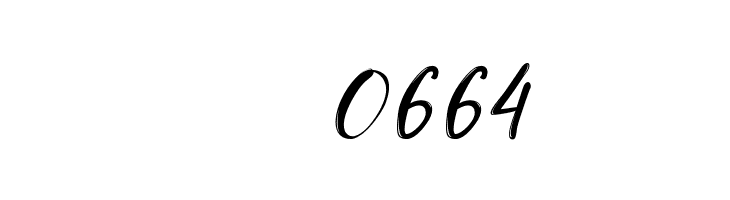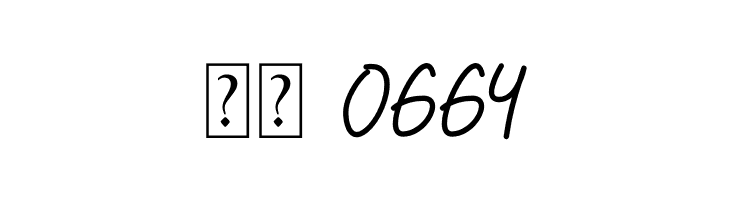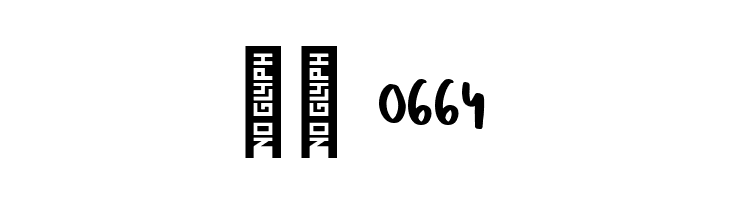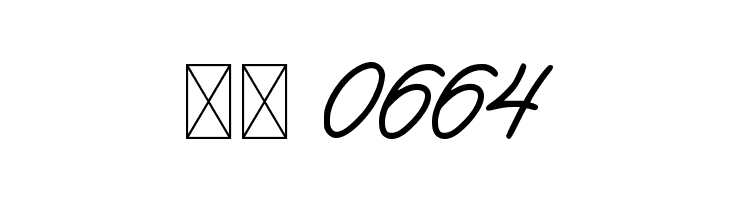
A bold, graffiti-style font with dynamic, edgy characters.
A bold, graffiti-inspired font with angular, sharp edges and a decorative style.
A geometric, futuristic font with angular, precise characters.
A modern, geometric font with a futuristic and tech-inspired design.
A modern, geometric font with a block-like, digital appearance.
A bold, playful font with a hand-drawn, uniform style.
A bold, modern font with clean lines and strong presence.
A bold, modern font with strong lines and clear characters.
A bold, expressive handwritten font with fluid strokes and a dynamic style.
A bold, playful script font with interconnected, flowing strokes.
A flowing, cursive script font with elegant, interconnected characters.
A cursive, handwritten-style font with elegant, flowing characters.
A bold, playful font with rounded, bubbly characters ideal for fun and whimsical designs.
An elegant script font with flowing, cursive characters and decorative swashes.
A playful, bold, and rounded font with smooth curves and a whimsical touch.
A playful and whimsical font with rounded, flowing letterforms.
A fluid and elegant script font with a calligraphic style.
A slanted, cursive font with medium contrast and elegant, flowing strokes.
A cursive, handwritten font with a casual and flowing style.
A playful and casual handwritten font with smooth curves and bold strokes.
A flowing, cursive font with a modern yet classic handwritten style.
A decorative, gothic-inspired font with sharp, jagged edges and pointed serifs.
A bold, italic font with a dripping, candle-like effect.
A playful, bold handwritten font with rounded strokes and a casual style.
An elegant script font with flowing, interconnected characters and a classic calligraphic style.
A playful, bold font with rounded, thick strokes and a friendly appearance.